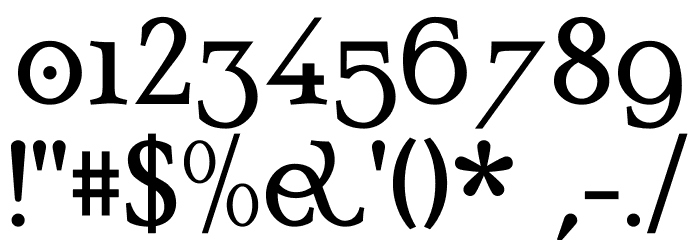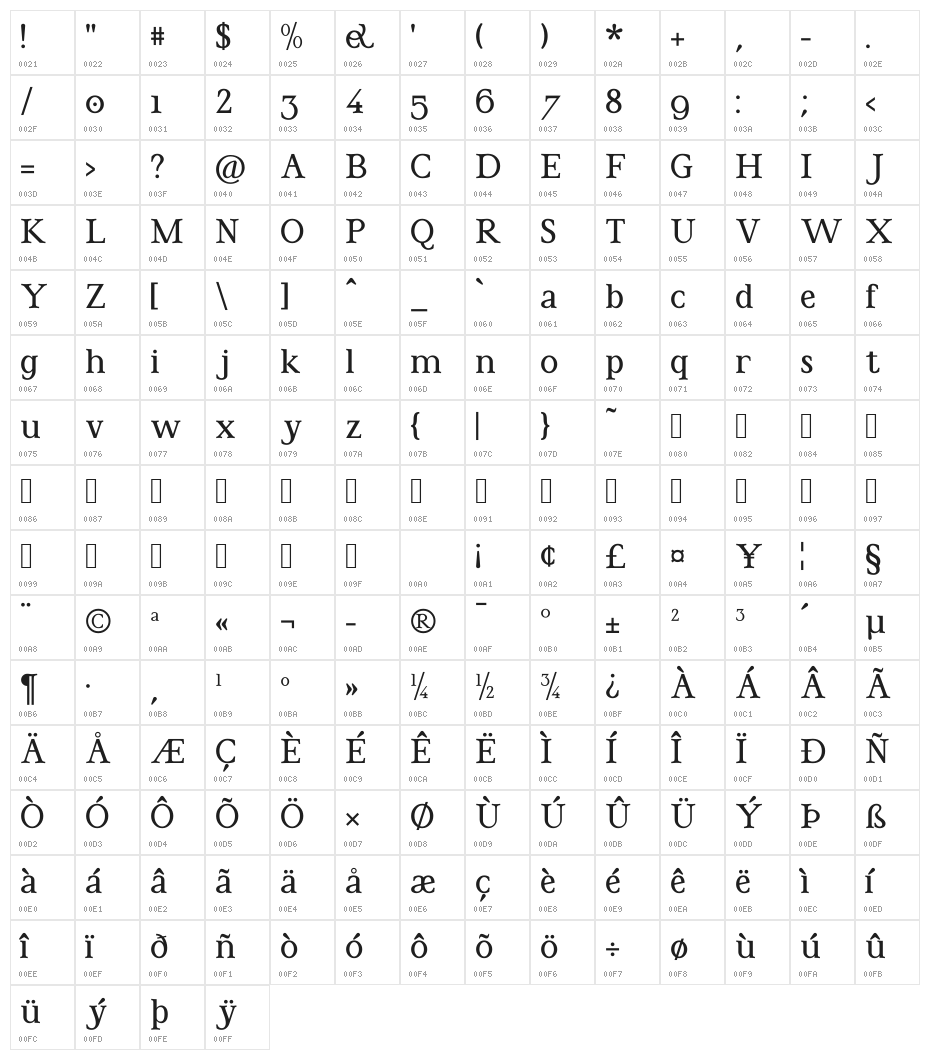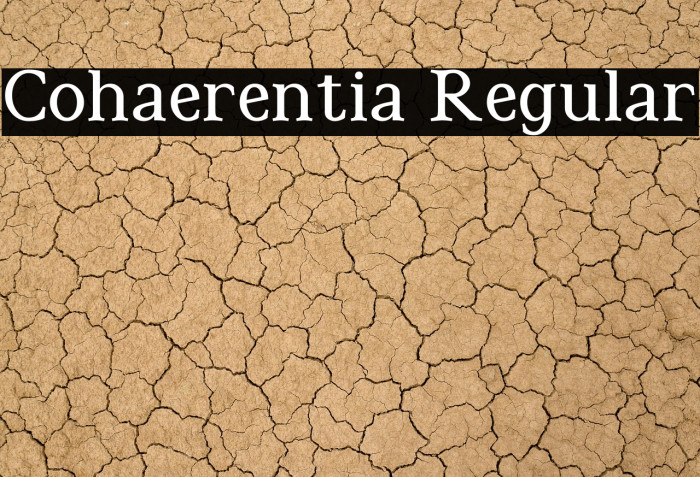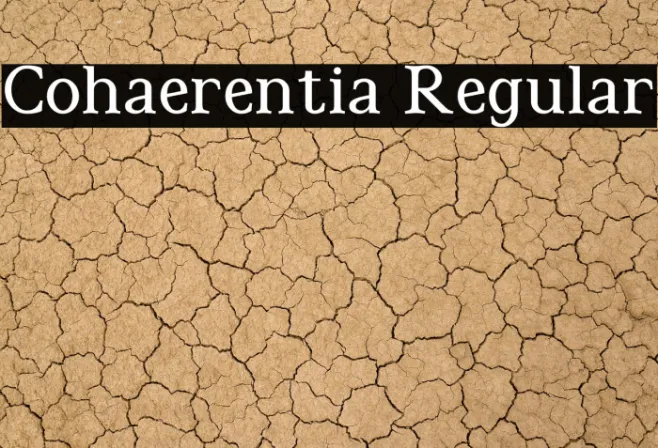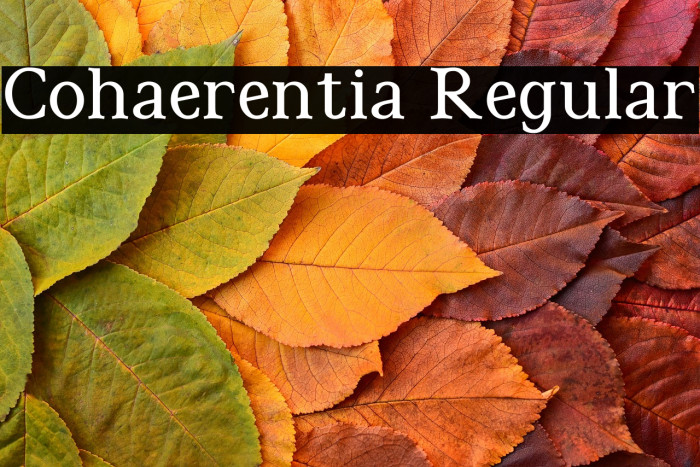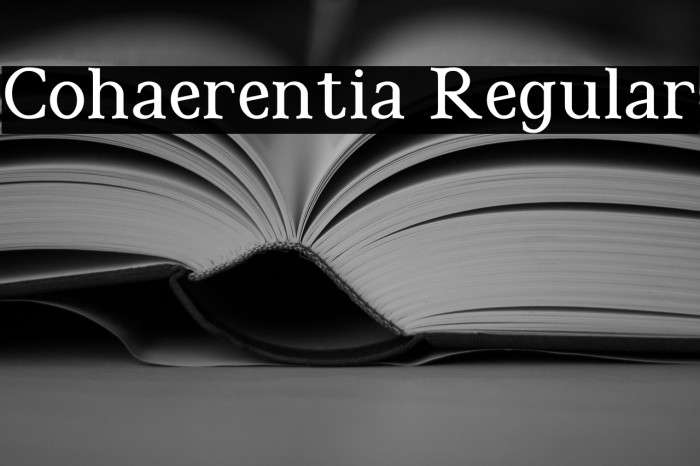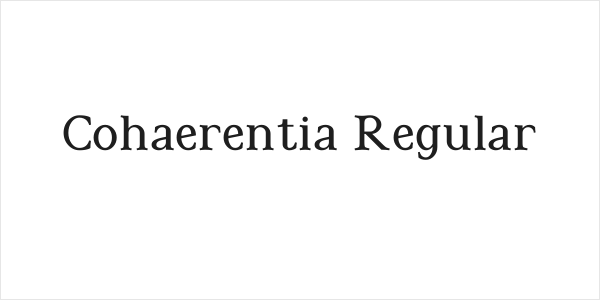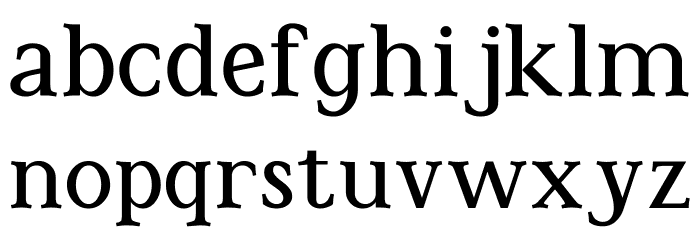
Cohaerentia Regular Font
Cohaerentia Regular Description
This font exhibits a classic serif style with elegant and slightly curved serifs that add a touch of sophistication. The uppercase letters are bold and commanding, while the lowercase letters maintain a balanced and readable form. The numerals are distinct and clear, making them suitable for various applications. Special characters are well-designed, maintaining the overall aesthetic of the font. The consistent stroke width provides a harmonious appearance, making it versatile for both digital and print media.
| Proposed Projects | Ideal for editorial design, book covers, formal invitations, and branding projects that require a touch of elegance. |